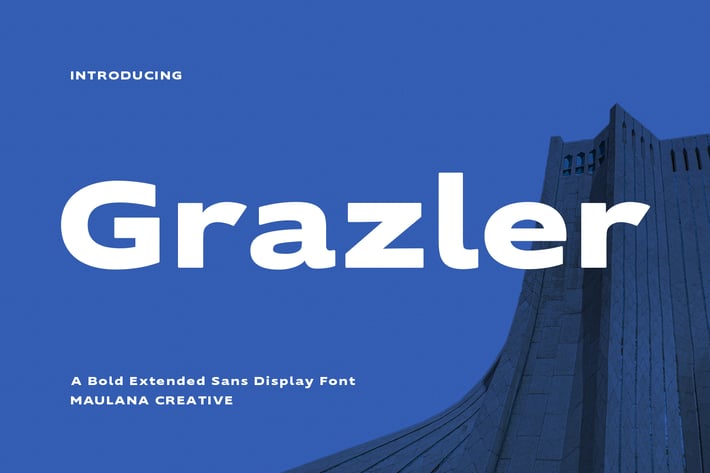
Grazler Bold Extended Sans Display Font
Grazler is a modern sans serif display font. With bold stroke, fun character with a bit of ligatures. To give you an extra creative work. Grazler font support multilingual more than 100+ language. This font is good for logo design, Social media, Movie Titles, Books Titles, a short text even a long text letter and good for your secondary text font with sans or serif. Make a stunning work with Grazler font.